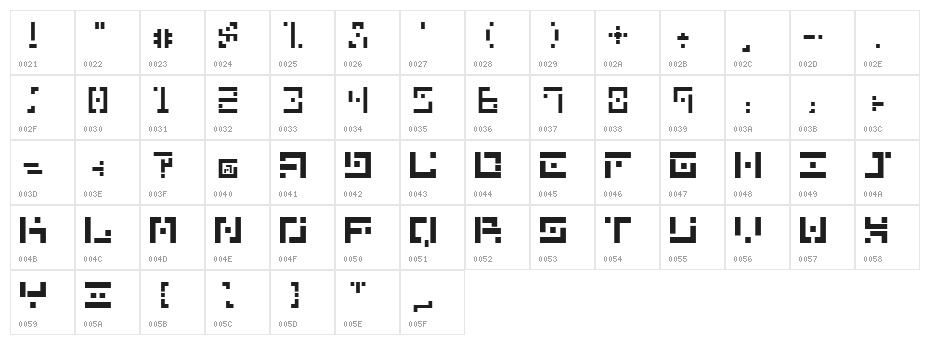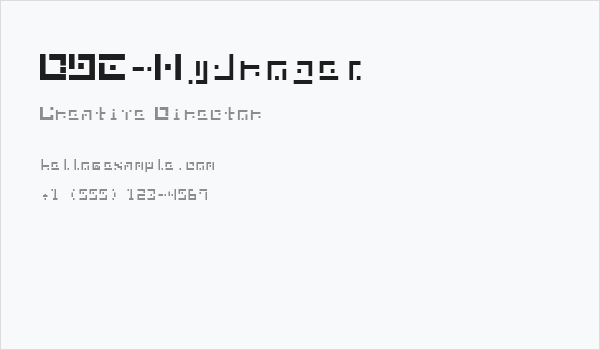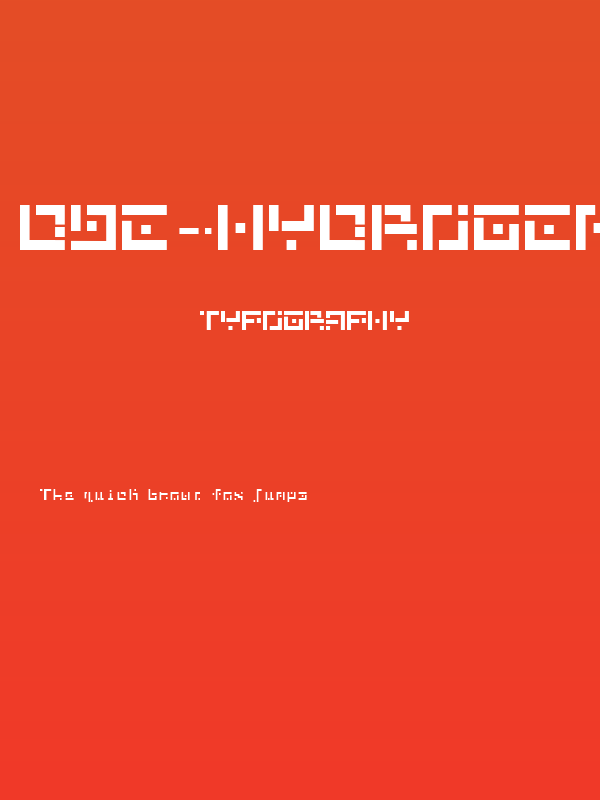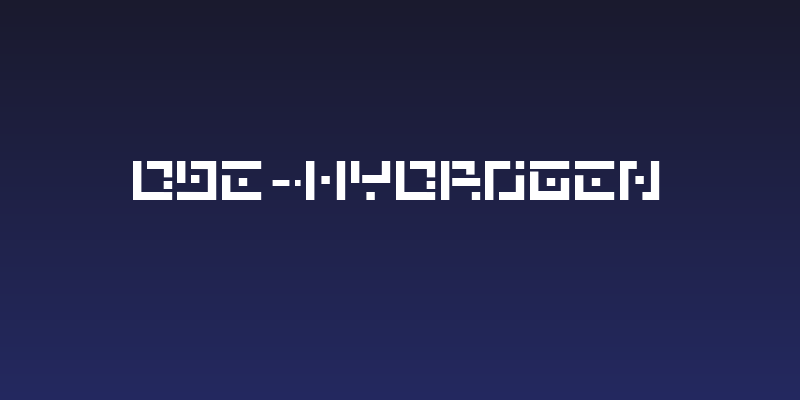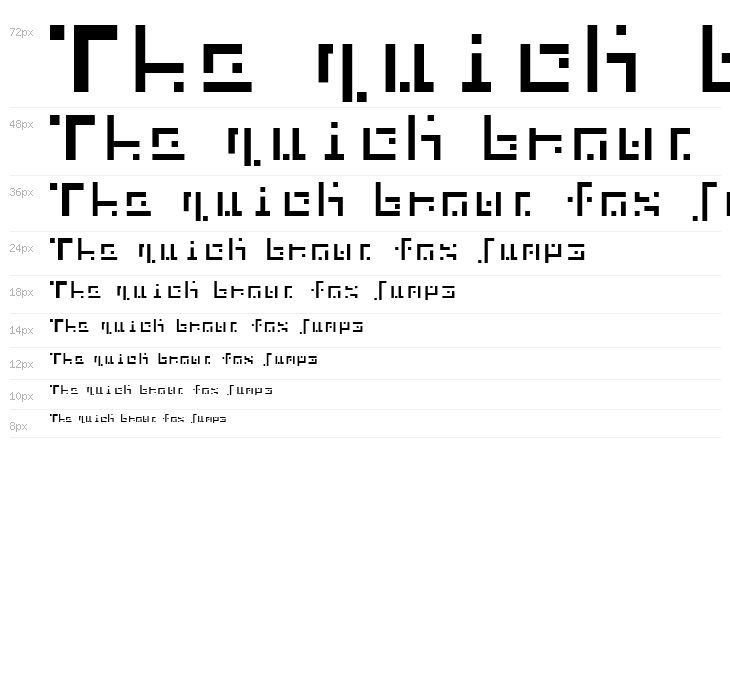
DBE-Hydrogen Font
DBE-Hydrogen Description
This font features a futuristic, geometric design with a blocky, pixelated appearance. Each character is composed of a series of straight lines and right angles, creating a digital, tech-inspired aesthetic. The uppercase and lowercase letters maintain a consistent style, with minimal differentiation in size, emphasizing uniformity. Numbers and special characters follow the same design principles, ensuring a cohesive look across all elements. The font's unique style makes it stand out, ideal for projects that require a modern, digital feel.
Use CaseLogos, Headlines, Digital Art
Proposed ProjectsIdeal for tech-related branding, video game graphics, digital art projects, and futuristic-themed designs.